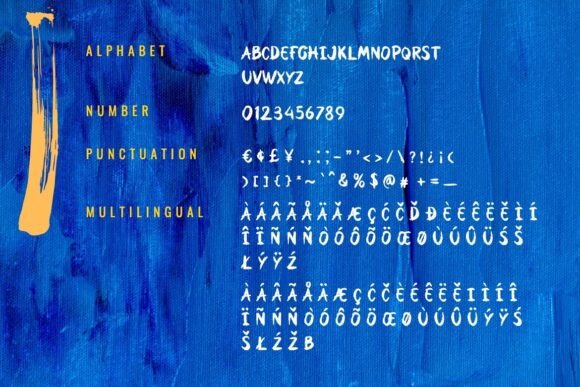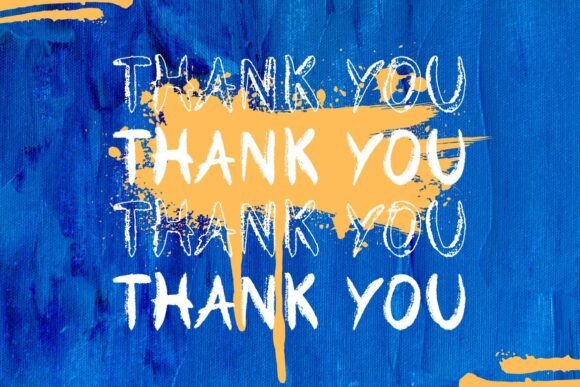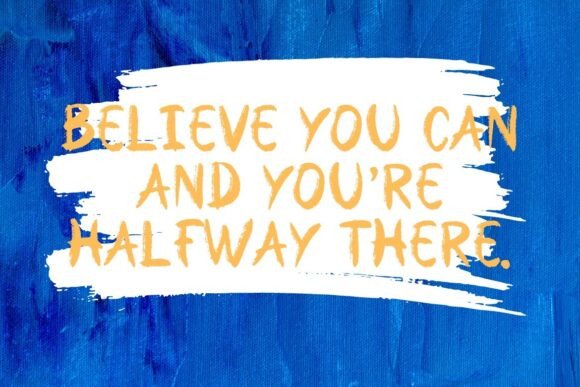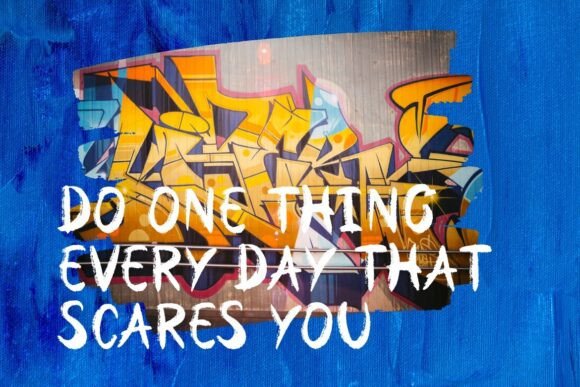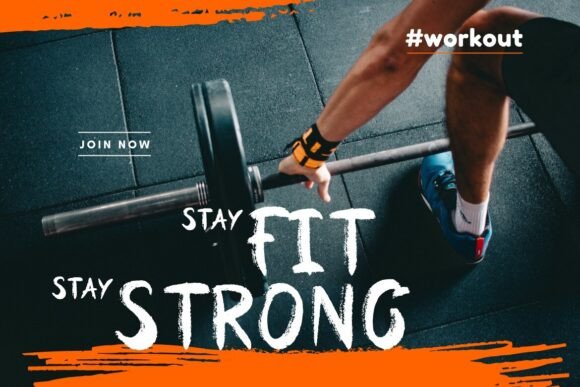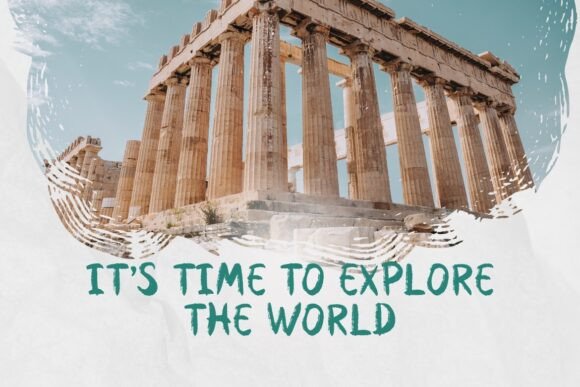
Introduction to Redaliva Font
Redaliva – Textured Brush is a special brush designed to create unique, textured effects on surfaces.
Its bristles are carefully crafted to help you add depth and dimension to your artwork, making it perfect for painting, crafting, and other creative projects .